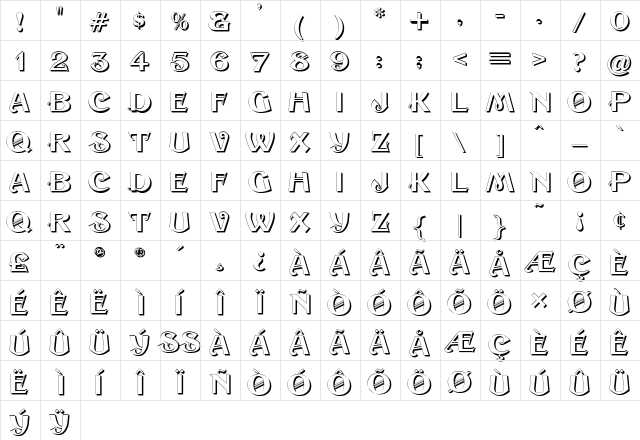
Sesame Shadow Regular
Design Context for Sesame Shadow Typeface
Sesame Shadow brings ornamental detail and strong personality to headlines and identities, where visual impact matters more than quiet functionality.
Font Pairing: Pair with a clean neutral sans-serif for body copy to let Sesame Shadow's character lead without overwhelming the composition.
Pro Tip: Use Sesame Shadow exclusively at display sizes — it was designed to be seen, not read at length. Let a neutral companion handle body copy.